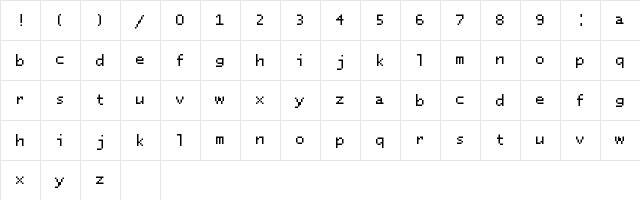
SylladexFanon Medium
Design Context for SylladexFanon Typeface
SylladexFanon takes a measured approach to typography — its balanced proportions and neutral character make it a reliable workhorse for both digital and print work.
Pro Tip: Use SylladexFanon in both headline and body roles to test its range before committing to a single application.